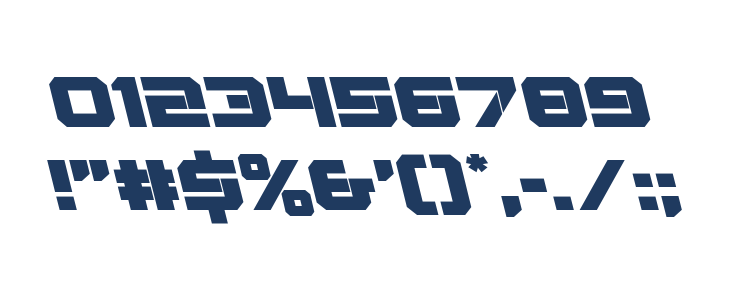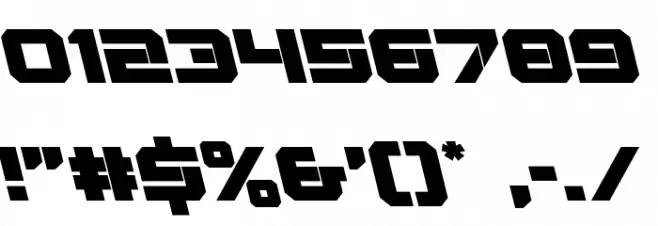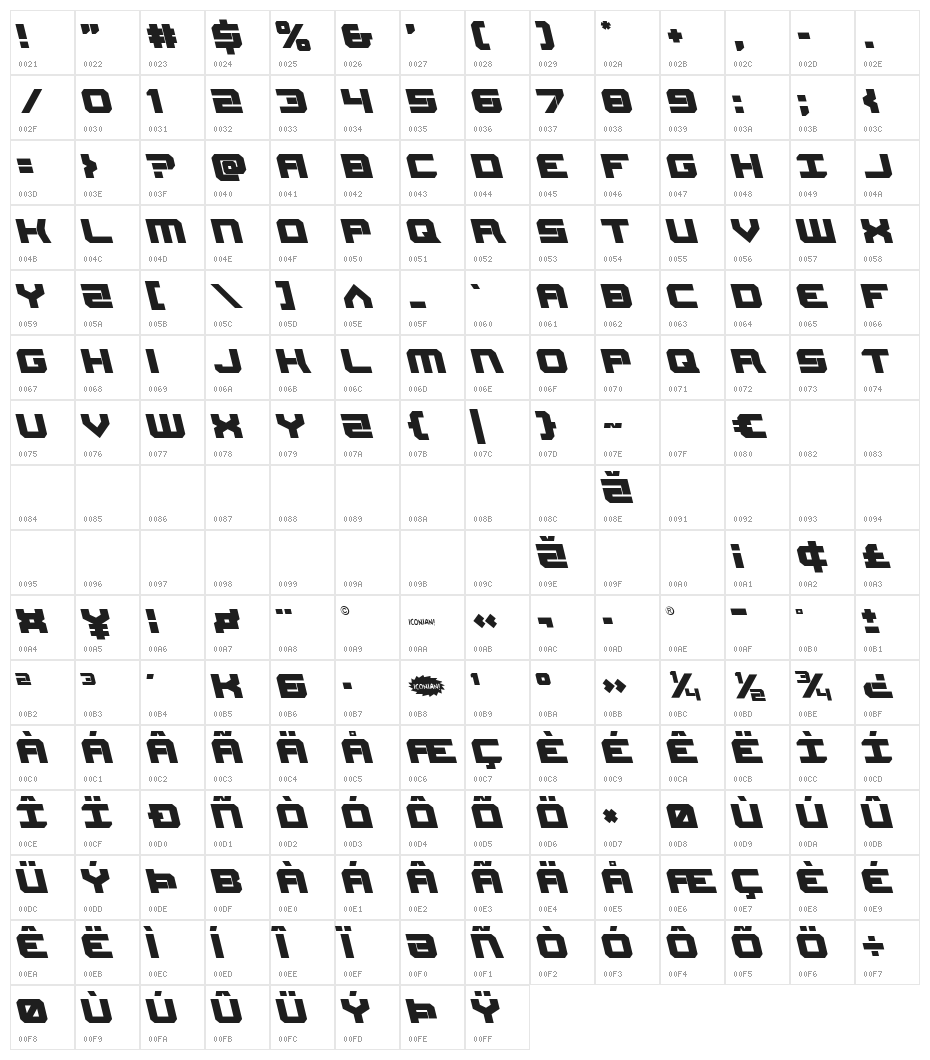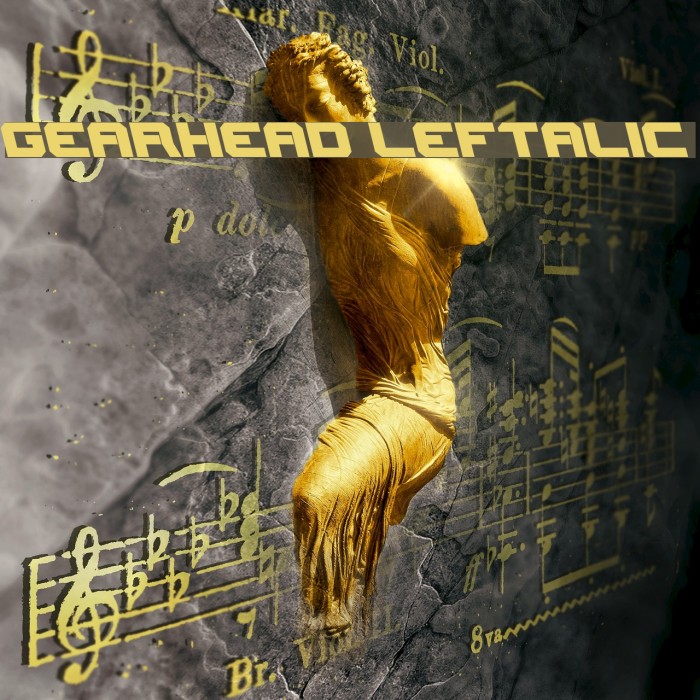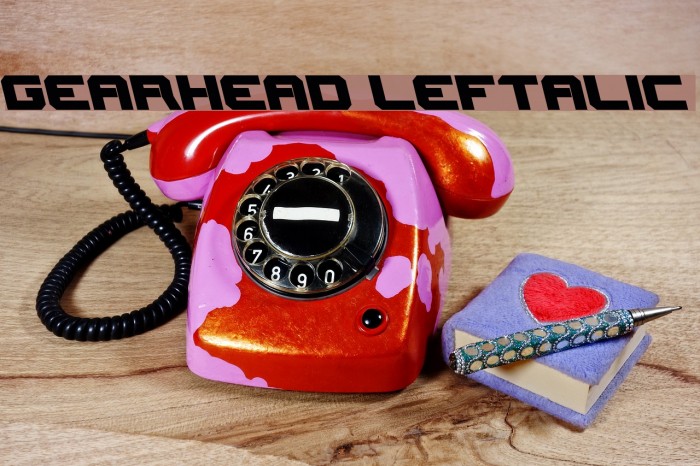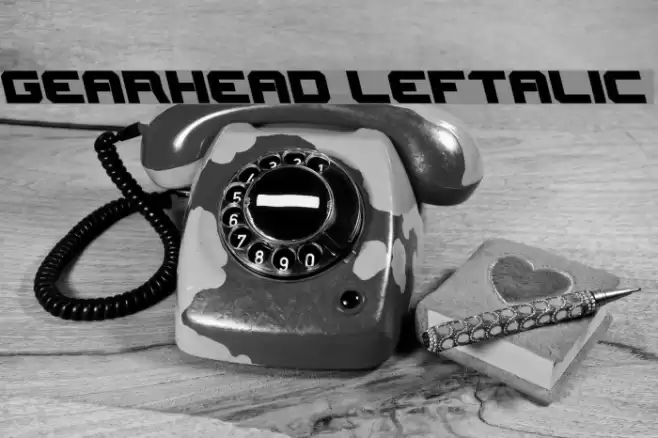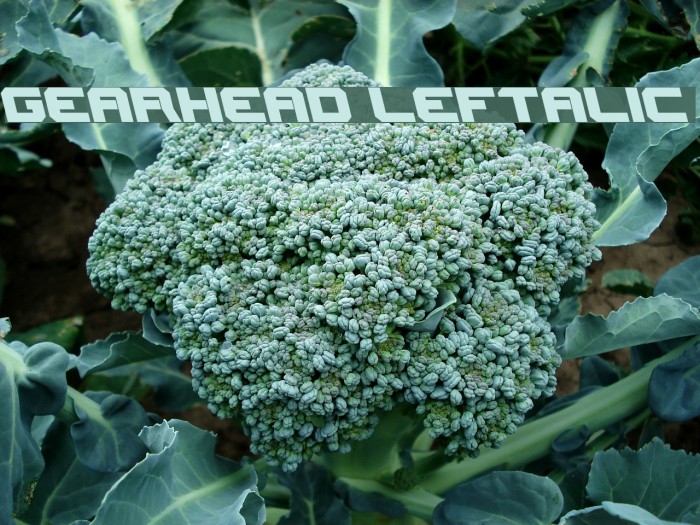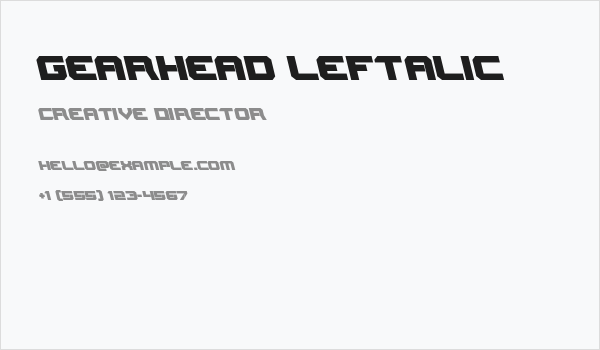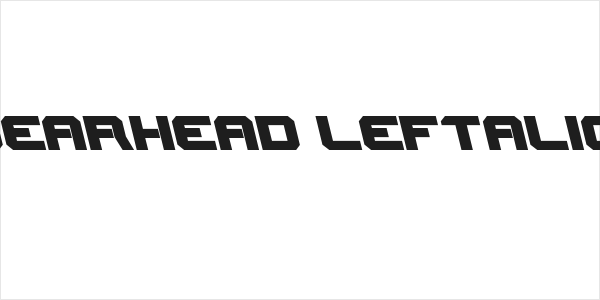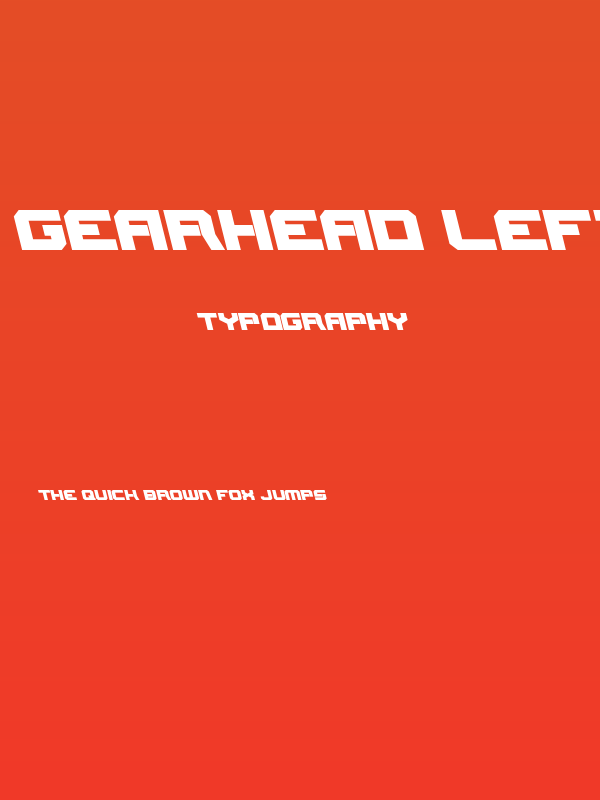
Gearhead Leftalic Font
Gearhead Leftalic Description
This font features a bold, angular design with a futuristic and industrial aesthetic. The characters are sharply cut with a distinct geometric style, giving them a mechanical and robust appearance. The uppercase and lowercase letters maintain a consistent width, contributing to a uniform look. The numbers and special characters follow the same design principles, ensuring cohesion across all elements. The font's unique style makes it stand out, suitable for projects that require a strong, modern, and edgy feel.